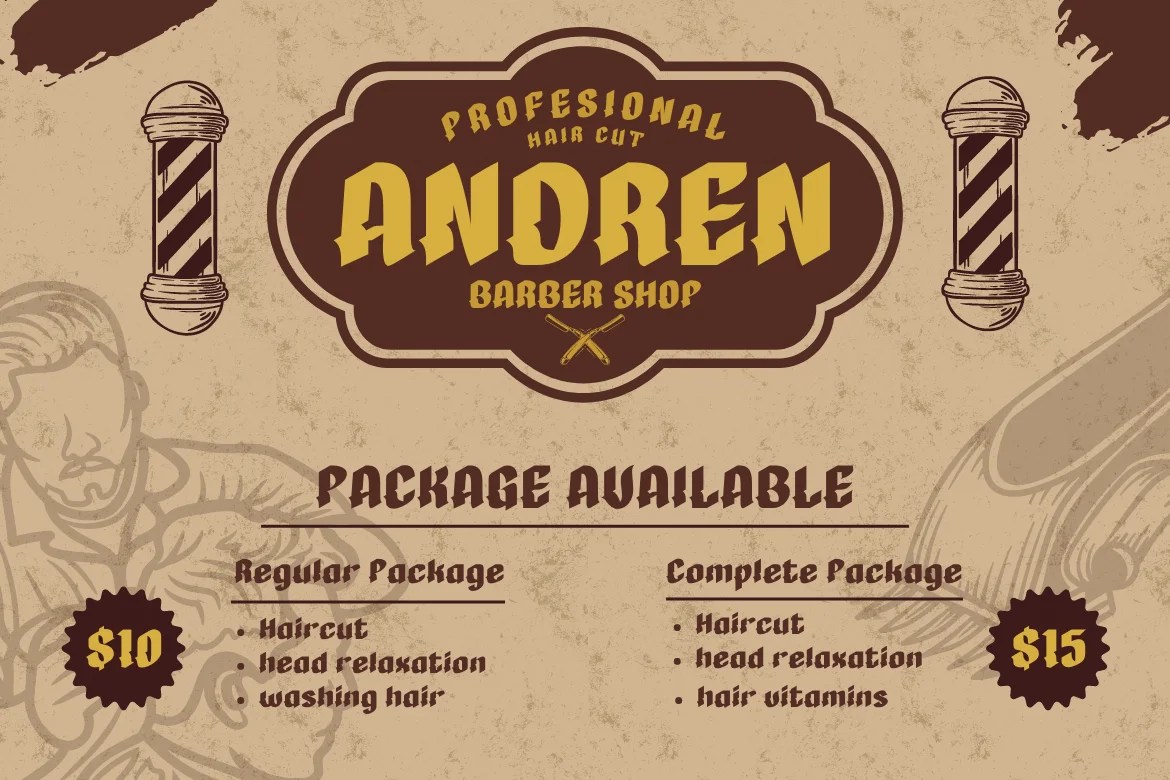
A genuine gothic blackletter font brings a specific kind of authority to a brand — vintage, elegant, and a little dramatic, borrowing the same visual weight that made blackletter the standard typeface of European printing for centuries. Twinletter’s collection includes 10 fonts built around that classic gothic register.
Despite its centuries-old origins, gothic blackletter hasn’t dated the way many display styles have — it has carried through newspaper mastheads, sports jerseys, streetwear labels, and band merchandise for well over a century, consistently signaling tradition, craftsmanship, and a confident, slightly rebellious elegance along the way. That’s why it shows up across everything from craft beer labels to luxury streetwear branding. A gothic blackletter font works because it borrows established visual authority rather than trying to invent a new one from scratch.
Rather than force artificial differences between 10 fonts that share the same underlying gothic structure, here’s what’s consistent across this gothic blackletter font collection:
A few in this collection have their own specific lean worth knowing: Xikas is described as appealing “to all genders, ages, and tastes” with a classic, confident elegance; Kagok combines a Victorian-inspired anatomy with a bolder, more futuristic edge; and Wukang leans toward a strong, vintage look suited to titles, banners, and packaging specifically. The rest share the same gothic foundation, so previewing your actual brand name in the type tester is the fastest way to judge individual letterform character — pay attention to how the capital letters render in particular, since that’s usually where a gothic blackletter font’s personality shows up most clearly.
Each of these 10 fonts ships with the same gothic blackletter style described above:
Waxen · Fanhen · Gadevox · Xikas · Rengkox · Kagok · Roback · Bhuron · Wukang · Kirha
Why does gothic blackletter still feel premium instead of dated? It borrows the established visual authority of centuries-old European printing type rather than trying to invent something new, which is why it consistently reads as tradition and craftsmanship rather than an outdated trend.
Can a gothic blackletter font work for a modern or minimalist brand? It’s a stronger fit for brands that want some drama and vintage character rather than a clean, minimalist look — pairing a gothic blackletter font with plenty of white space and a restrained color palette can help it feel intentional rather than purely retro.